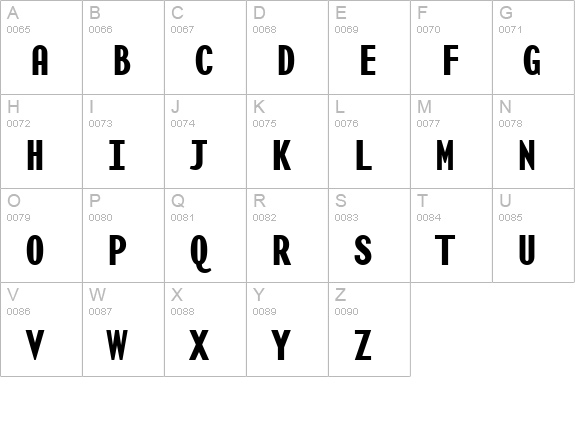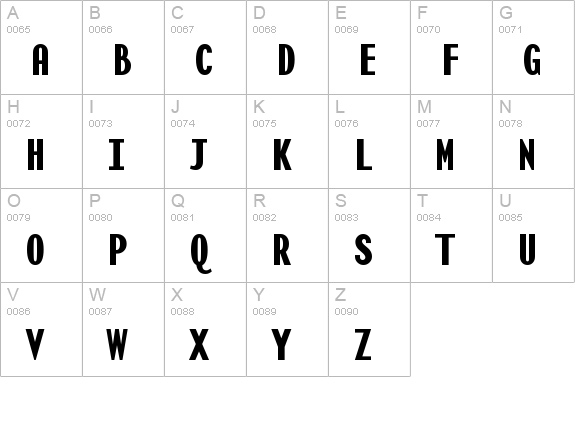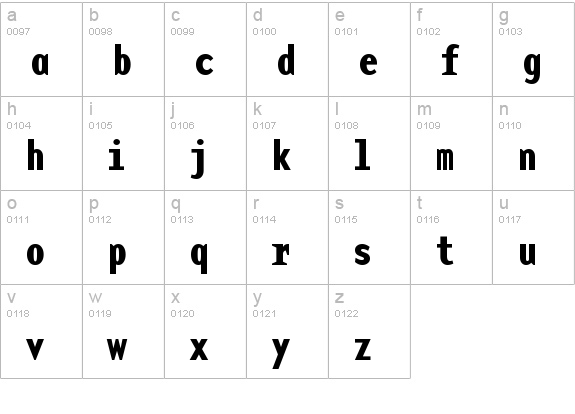
BaseMonoNarrowBold Bold Font Details
BaseMonoNarrowBold Bold is a strong, high-contrast variant in the BaseMonoNarrowBold typeface family \xE2\x80\x94 well suited to headlines, attention-grabbing titles, and strong calls-to-action.
BaseMonoNarrowBold Bold font is a modern and sleek typeface that exudes confidence and boldness. With its elegant narrow design and strong weight, this font is perfect for making a statement in your projects. Whether you are designing posters, logos, or website headers, BaseMonoNarrowBold Bold font will make your text stand out. The best part is that BaseMonoNarrowBold Bold font is available for free download at FontsMarket.com. You can easily access this stylish and versatile font to enhance your designs without any cost. Don't miss out on adding BaseMonoNarrowBold Bold font to your font collection today!